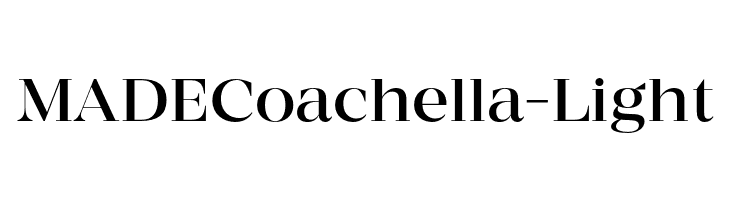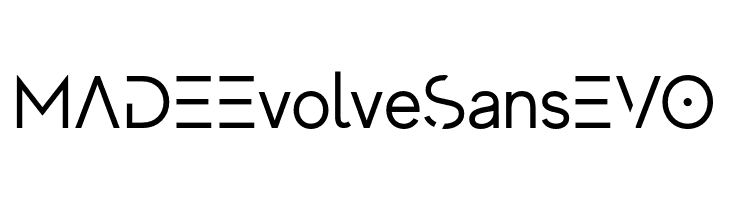
A sophisticated serif font with high contrast and elegant lines.
A bold, high-contrast serif typeface with elegant serifs and strong presence.
An elegant serif font with thin strokes and high contrast, perfect for sophisticated designs.
A bold serif font with strong, elegant strokes and excellent readability.
A modern, geometric sans-serif font with clean lines and uniform strokes.
A bold, modern sans-serif font with clean lines and uniform strokes.
A modern, light sans-serif font with a clean and minimalistic design.
A modern, sans-serif font with clean lines and balanced proportions.
A modern, thin sans-serif font with a clean and minimalistic design.
A modern geometric sans-serif font with unique character cuts and a sleek design.